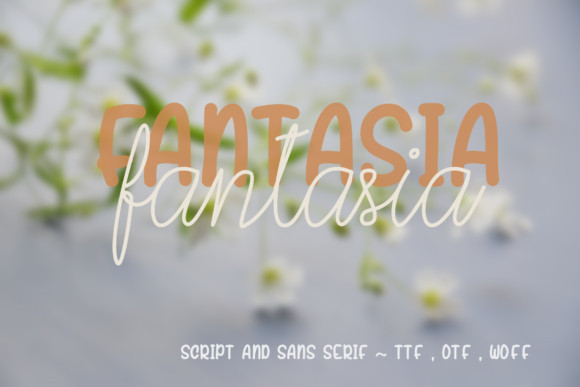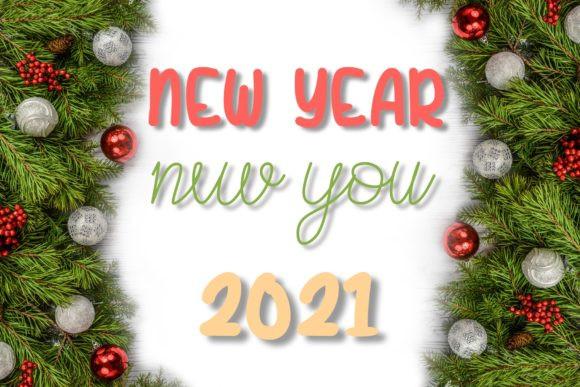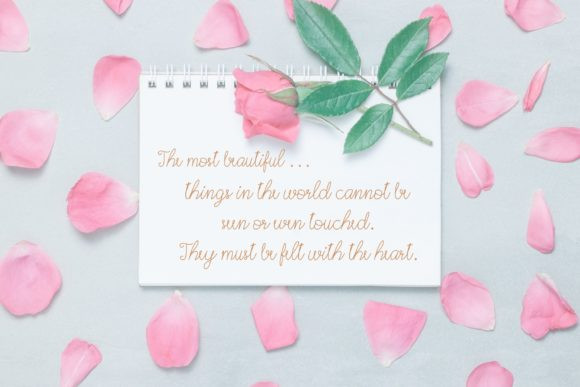
Fantasia Font
Fantasia is a sweet and incredibly versatile duo font. It is suitable for any branding, product packaging, invitation, quote, t-shirt, label, poster, logo that you wish to develop.